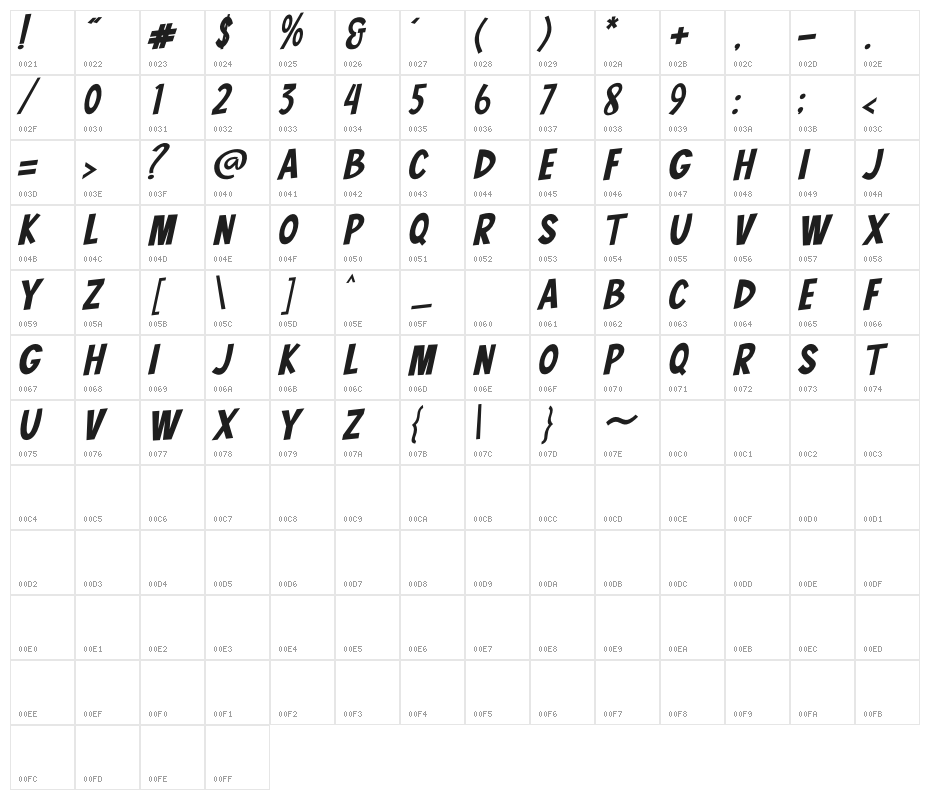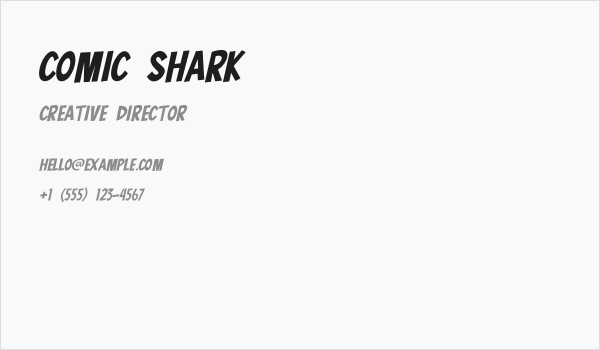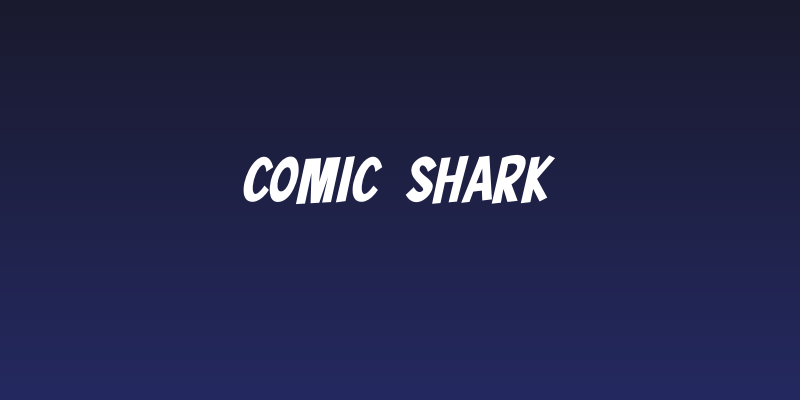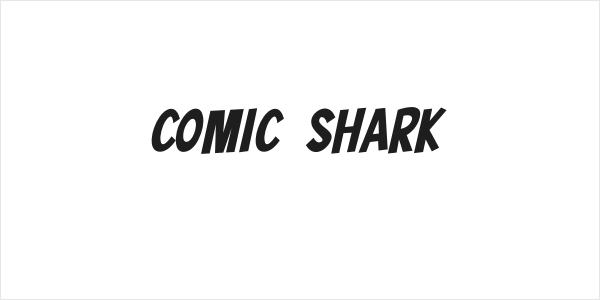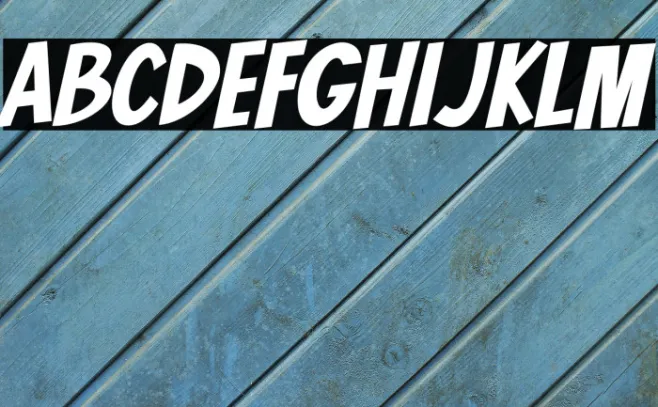
Comic Shark Font
Comic Shark Description
This font features a playful and dynamic style, characterized by its bold and slightly italicized letterforms. The strokes are thick and consistent, giving it a strong presence. The letters are slightly slanted, adding a sense of movement and energy. The characters are well-spaced, ensuring readability while maintaining a compact appearance. This font is ideal for projects that require a fun and engaging look, such as comic books, children's materials, or playful branding. The numbers and special characters are designed to match the lively style of the alphabet, making it versatile for various applications.
| Overall Style | Playful, Dynamic |
| Proposed Projects | Comic books, children's materials, playful branding, posters. |